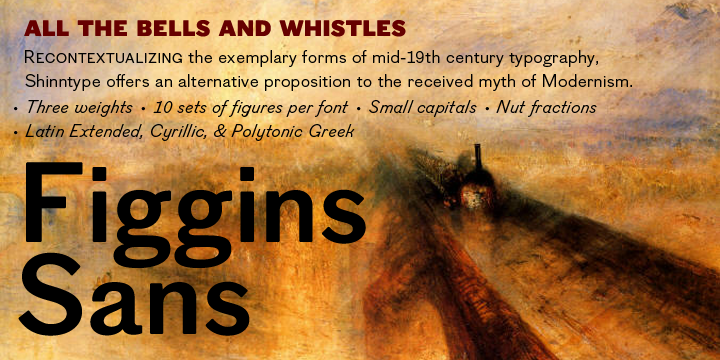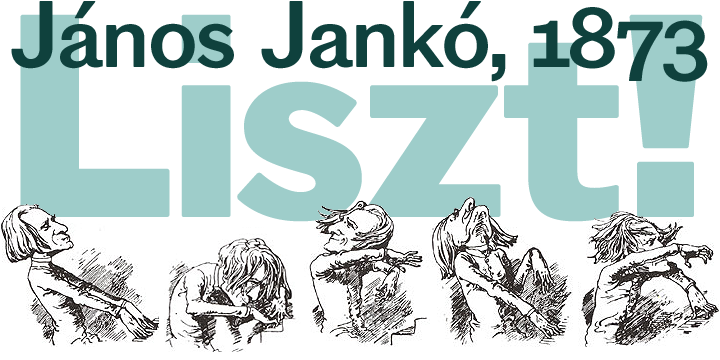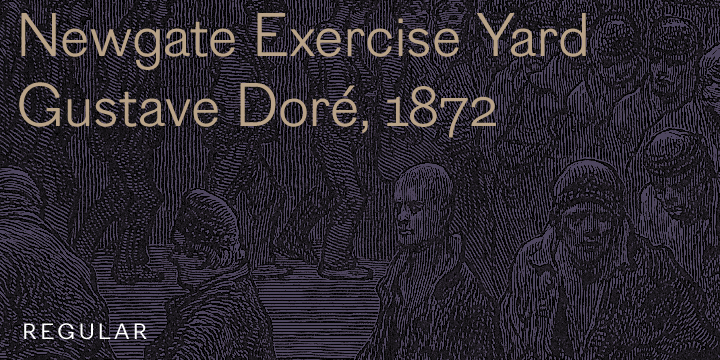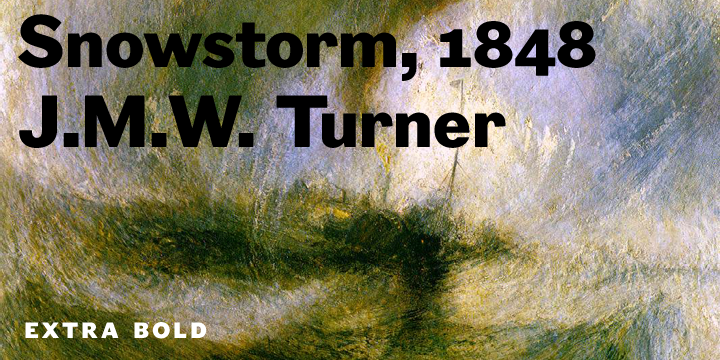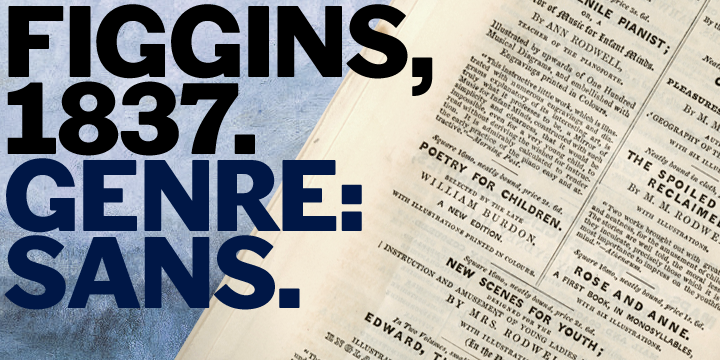
Figgins Sans Family (4 fonts)
The Figgins foundry, inventor of the term sans serif, showed a ?ne example in its specimen of 1836. The extra bold weight of Figgins Sans is a close revival of the original, with the addition of a lower case which retains its partly geometric, partly grotesque quality. The family is rounded out with other weights and an italic, and extended into Cyrillic and Greek, all executed in what is assumed to be as authentic a manner as possible, given the hypothetical nature of the exercise. Together with Scotch Modern, comprises The Modern Suite of matched fonts.
Old-style Digits, Ligatures, Discretionary Ligatures, Small Caps, Historical Forms, Alternates, Contextual Alternates, Fractions, Superscript, Subscript